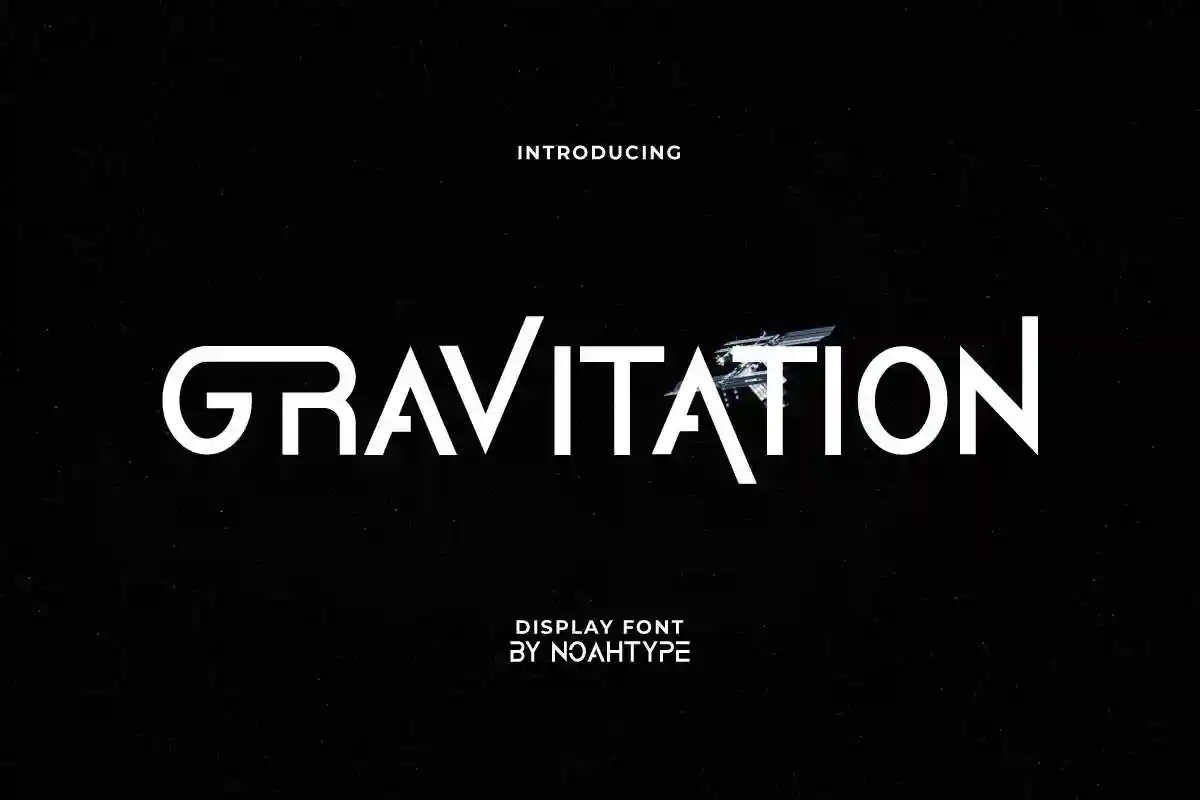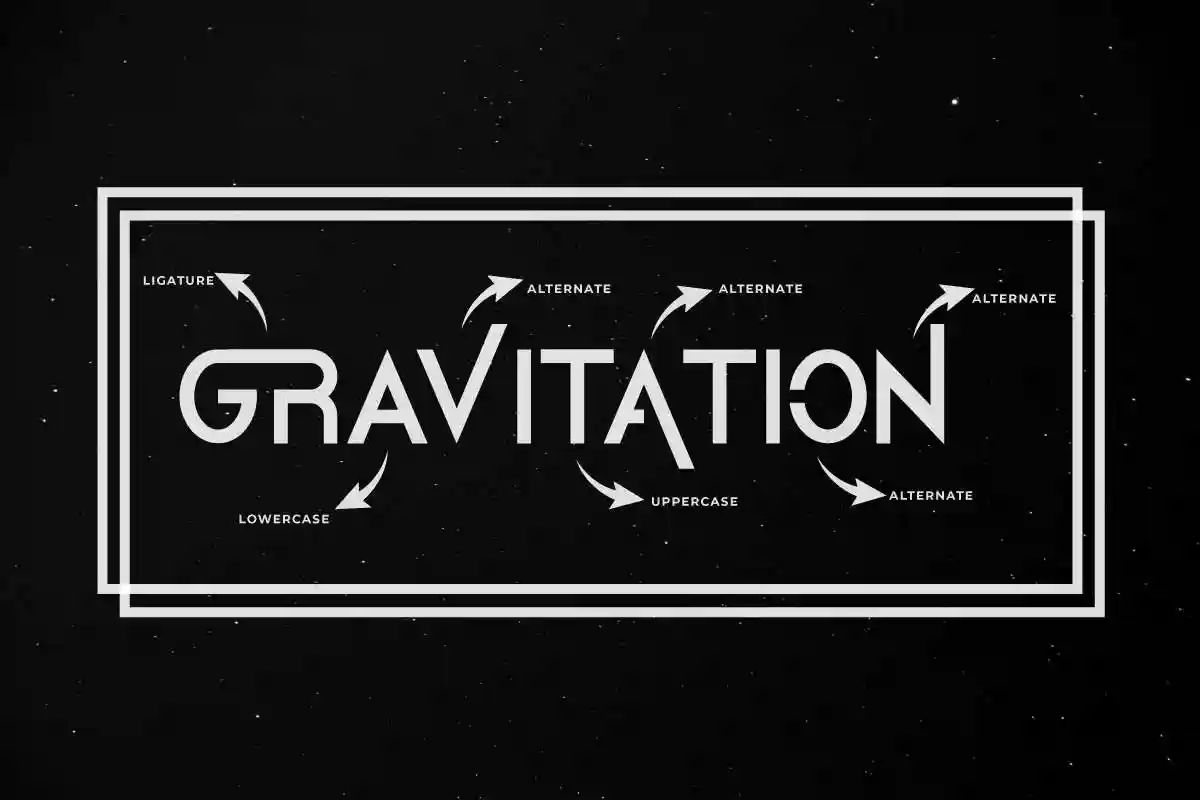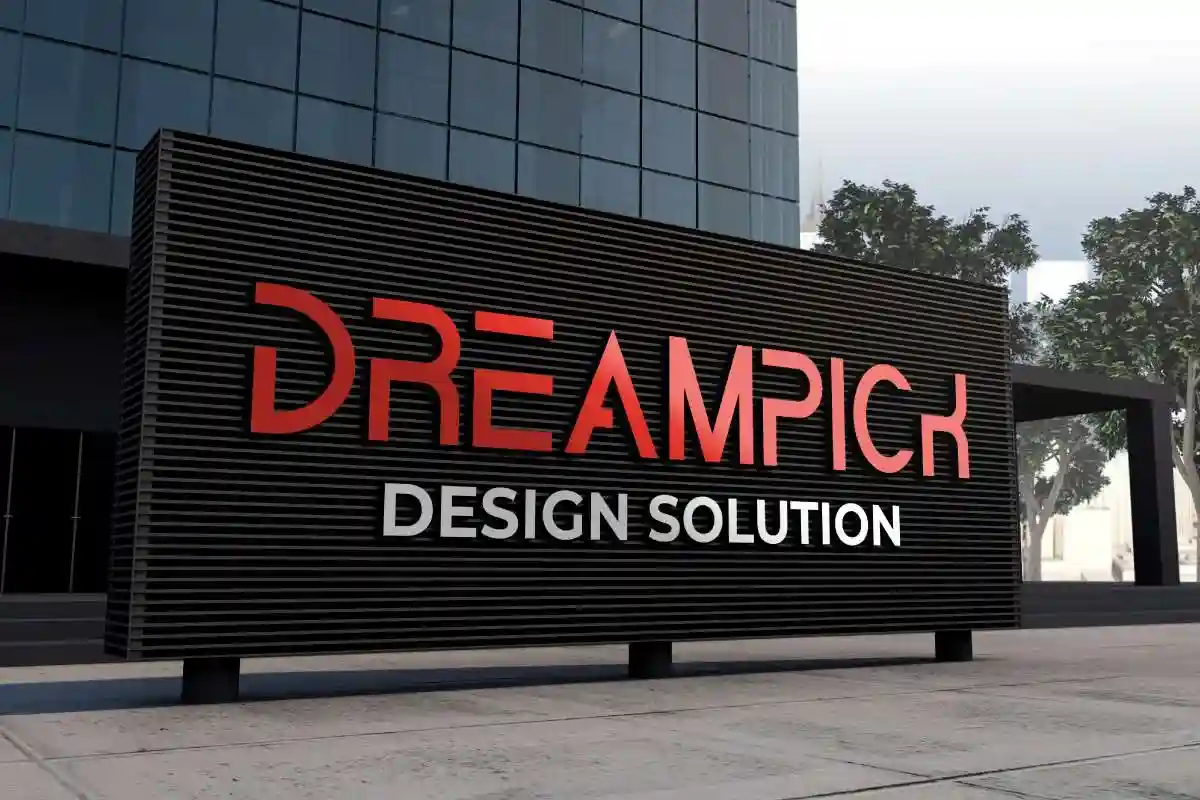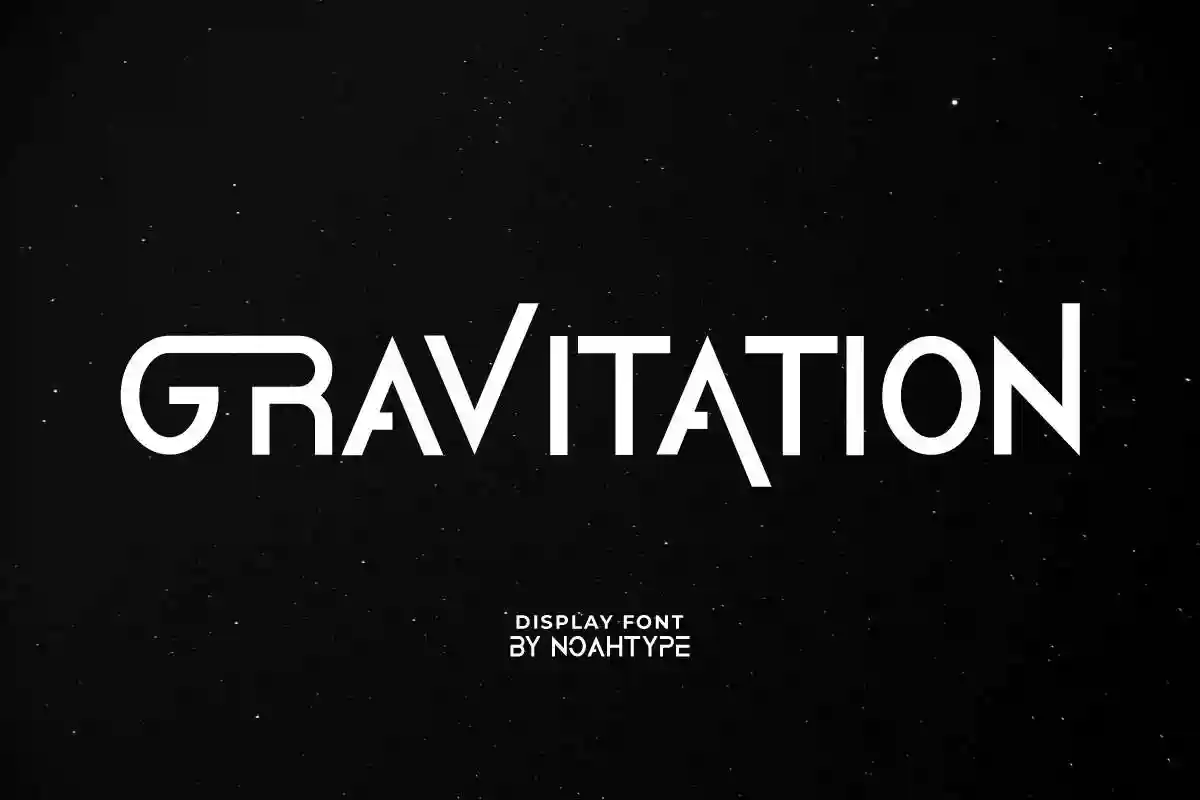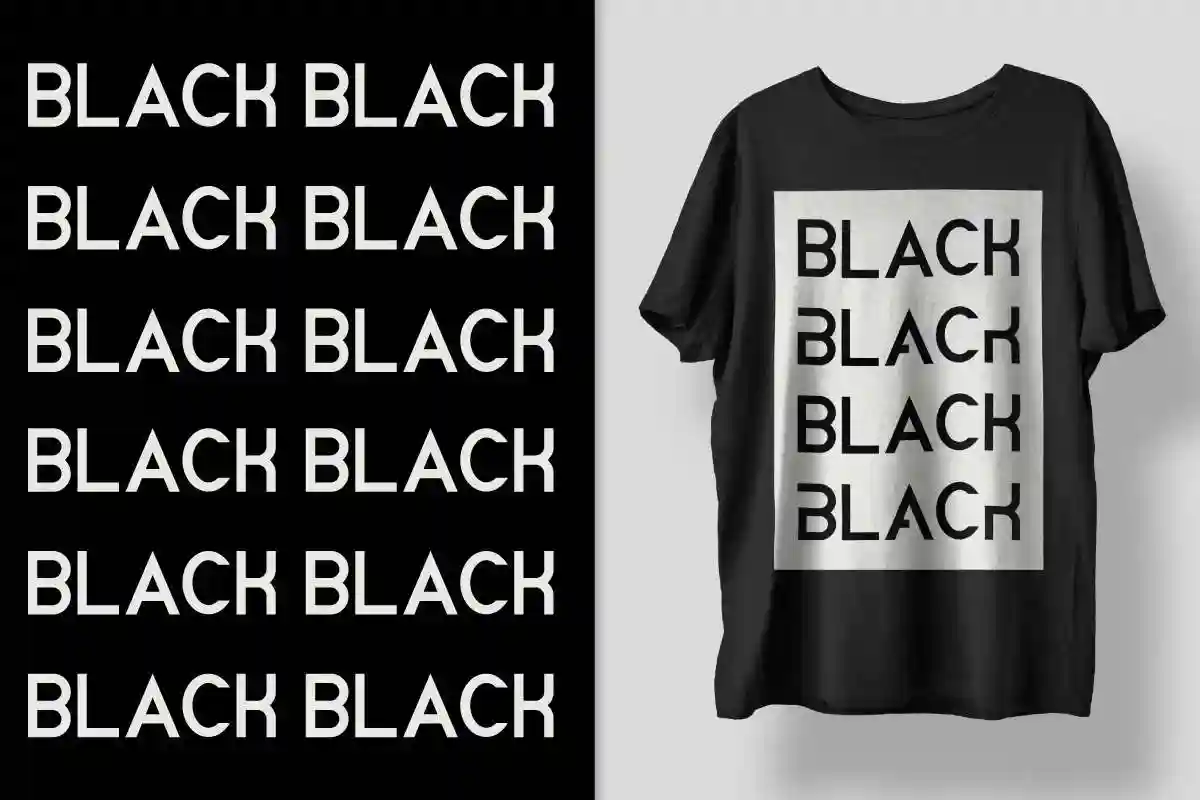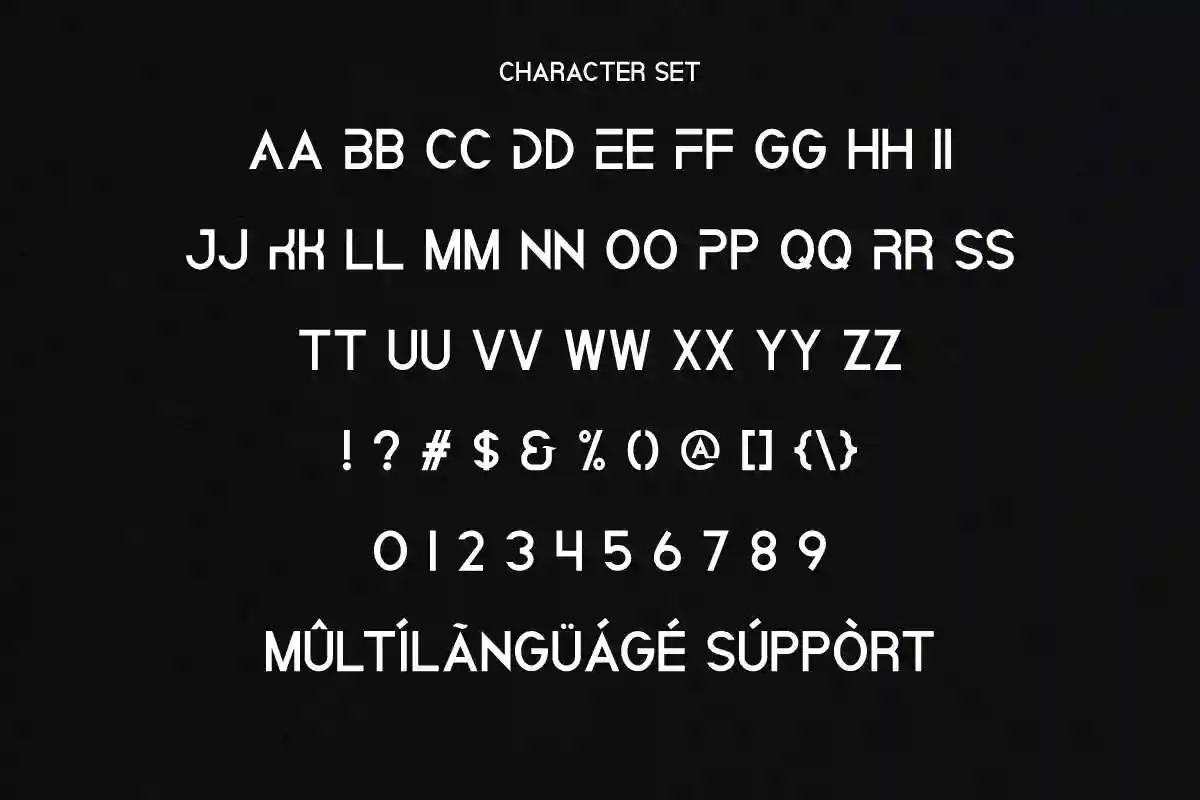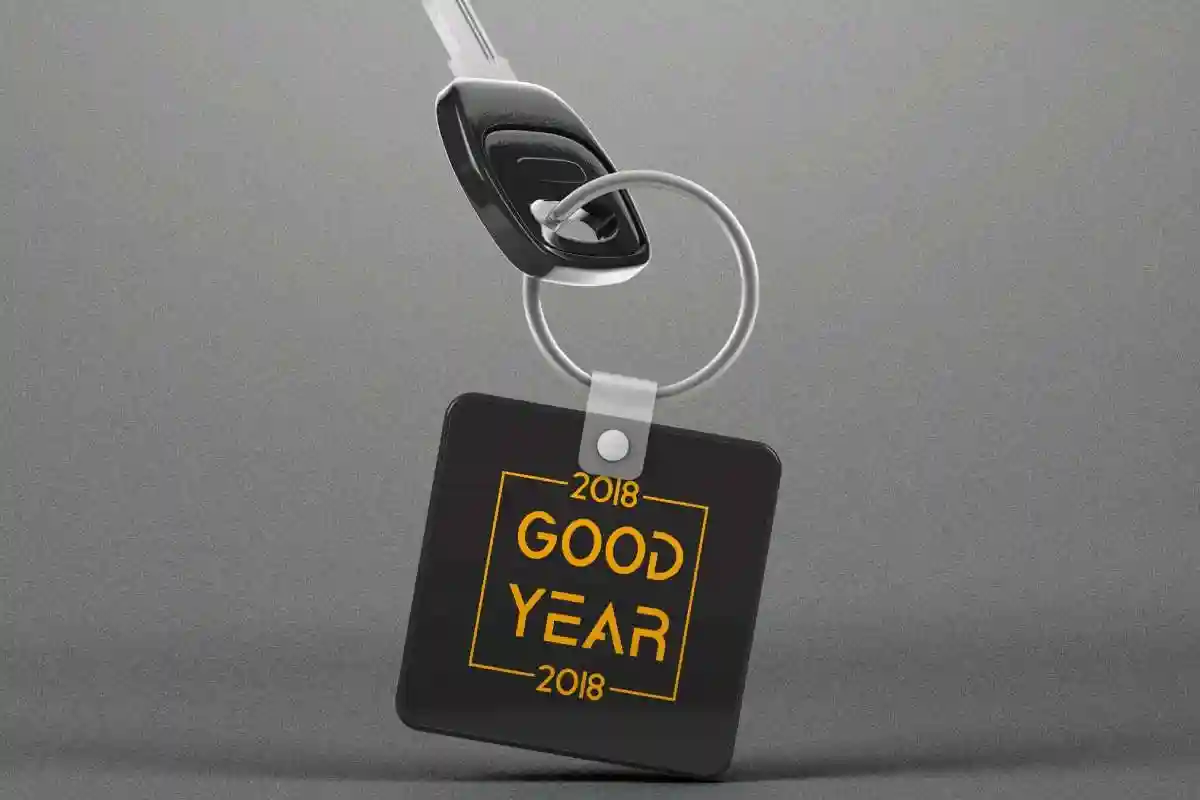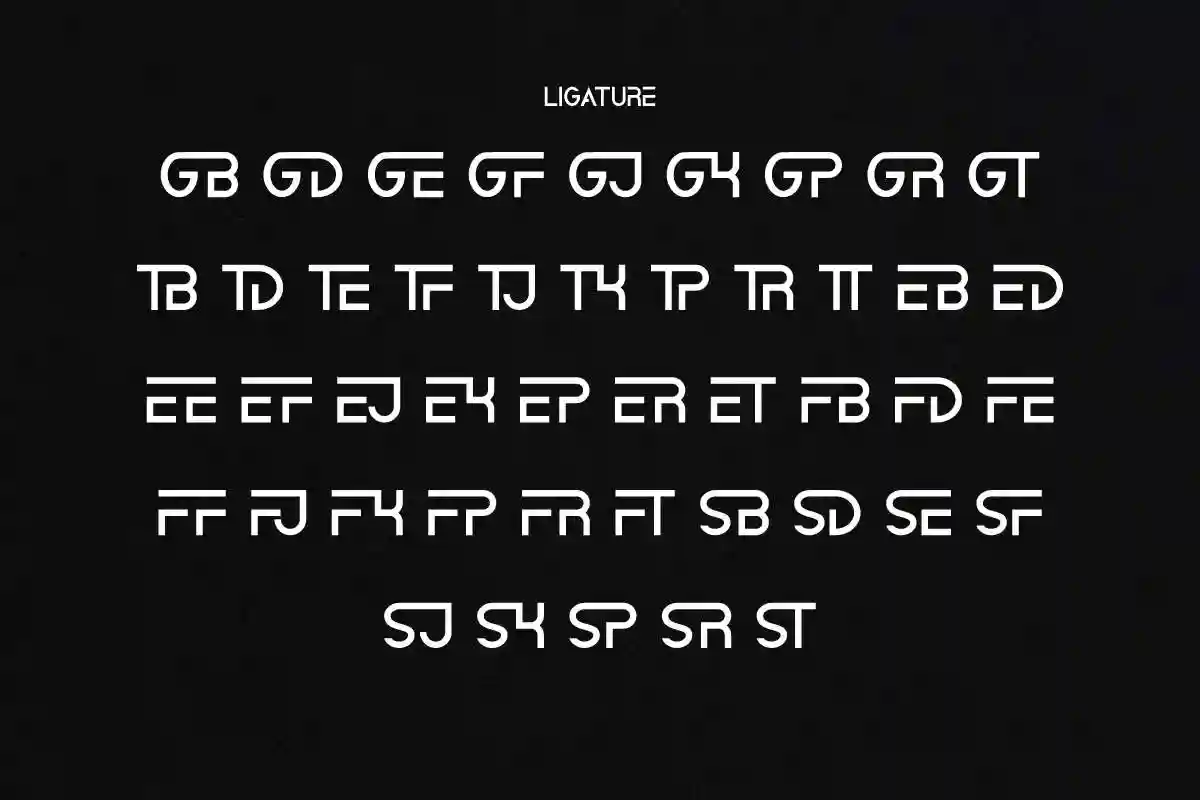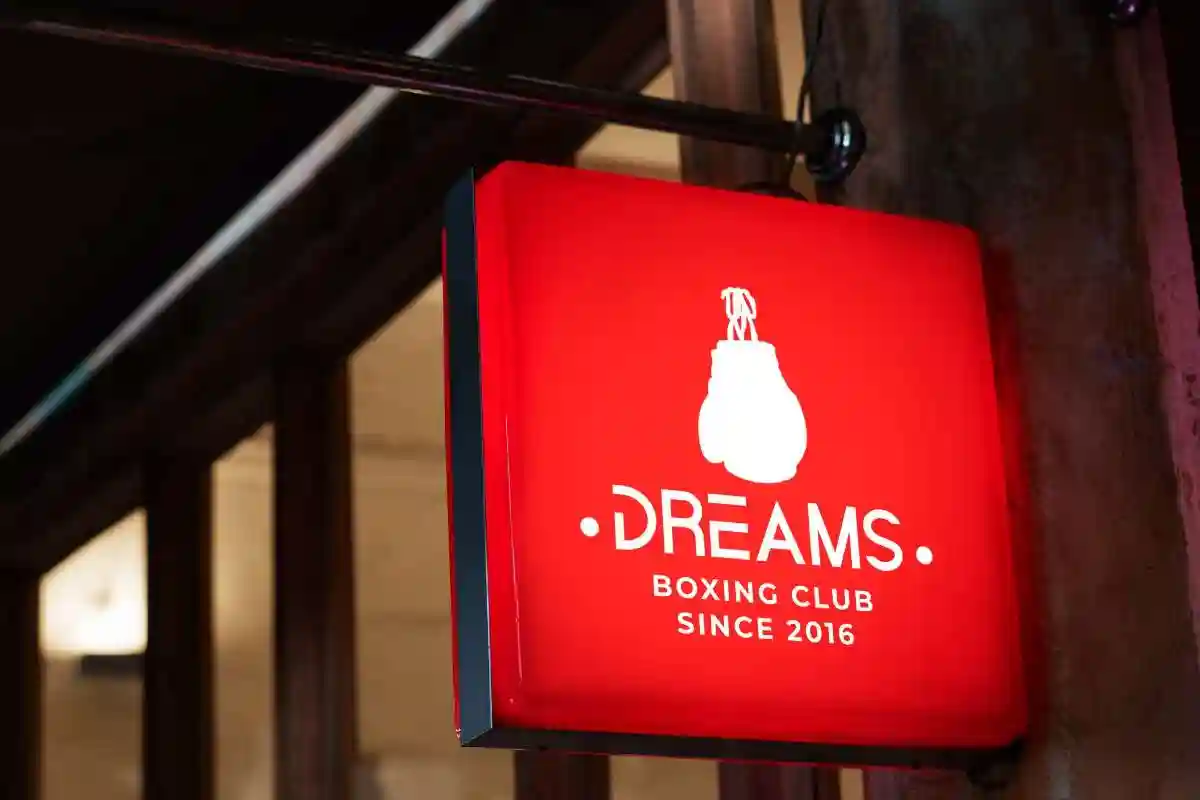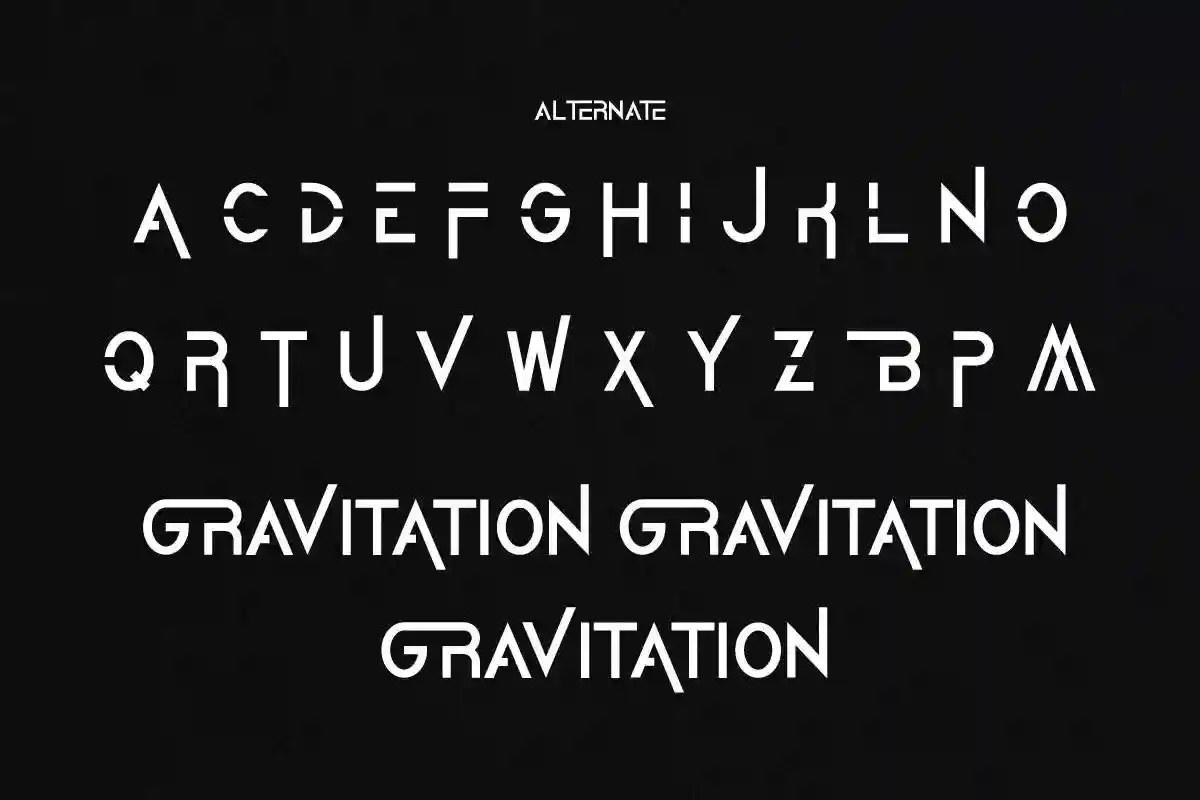
Gravitation Font is a modern sans serif display font with strong style characters. It has a unique style that will bring the special effect to the design. It will works for games, technology, events, spaceship and any modern things. Gravitation Font includes full set of Uppercase and Lowercase Basic Characters, Numerals and Punctuation. The font also comes with ligatures and alternative characters which are perfect for many projects, headlines, logos, poster, tittle, products, etc.